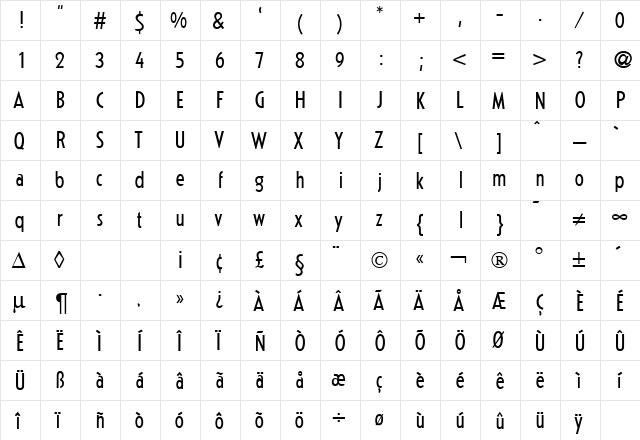
KochOriginalCond Regular
Design Context for KochOriginalCond Typeface
KochOriginalCond takes a measured approach to typography — its balanced proportions and neutral character make it a reliable workhorse for both digital and print work. Its narrow stance lets it pack a punch even in space-constrained designs.